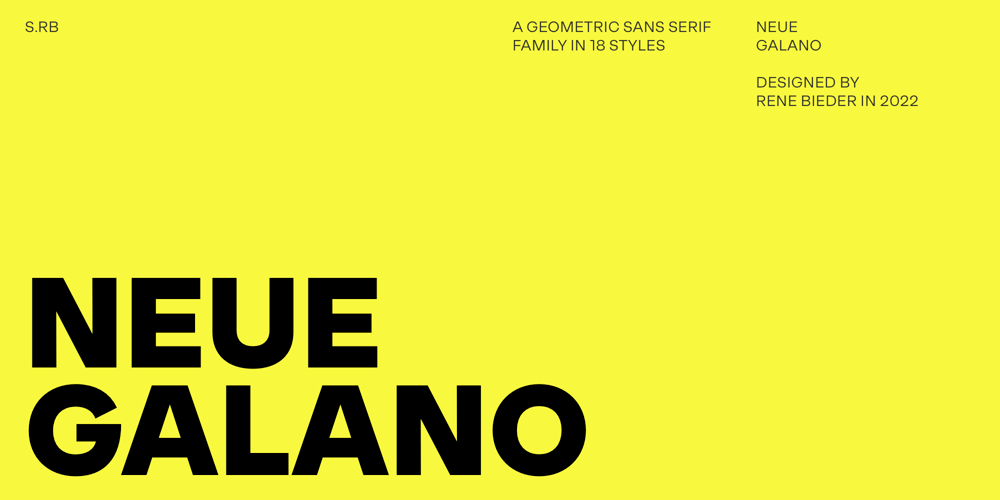
Neue Galano
Neue Galano font
Neue Galano Font Family was designed by René Bieder and published by René Bieder. Neue Galano contains 18 styles and family package options. The success story of geometric fonts is easy to understand. Their open, friendly nature seamlessly integrates into any context, quietly and unobtrusively. Imagine if Neue Galano were personified – it would be the embodiment of the ever-optimistic individual residing next door, effortlessly excelling in engaging small talk as well as thought-provoking political discussions. Neue Galano possesses a versatile charm, capable of adapting to any situation and making everyone feel at ease. Neue Galano is the successor of Galano Grotesque. With its refreshed identity, Neue Galano continues to embody the qualities that have made Galano Grotesque so beloved – approachability, versatility, and an innate ability to connect with people.